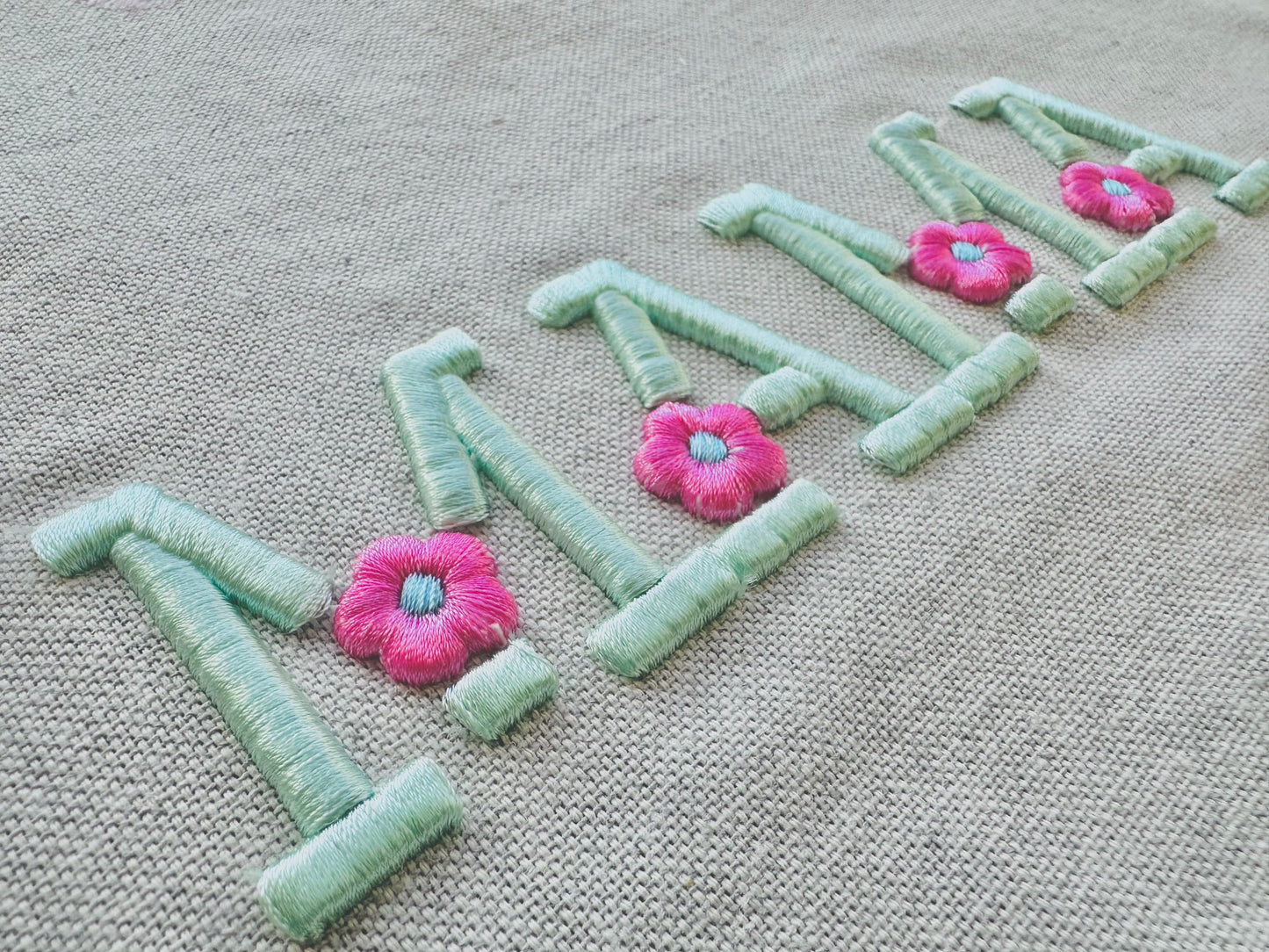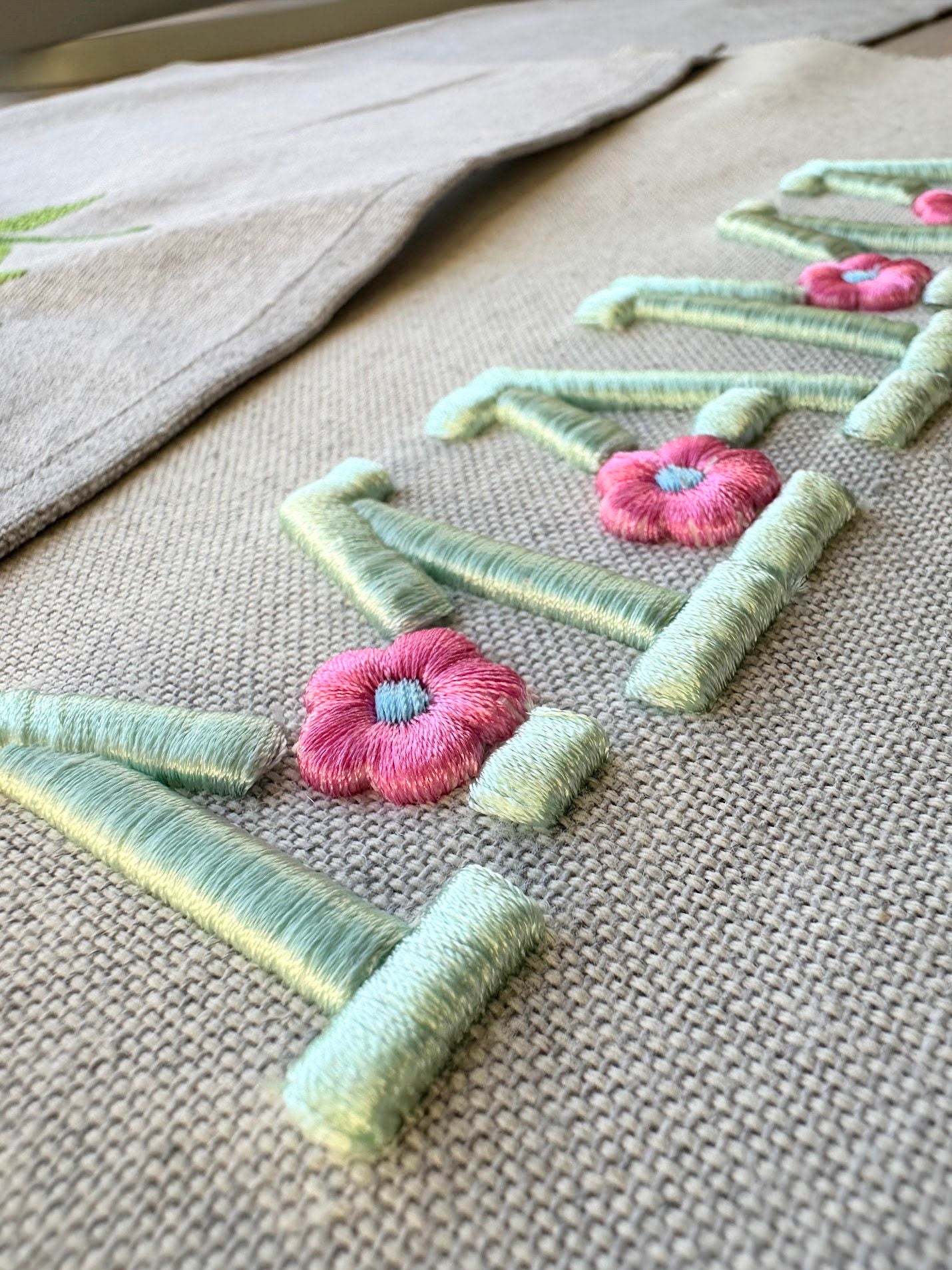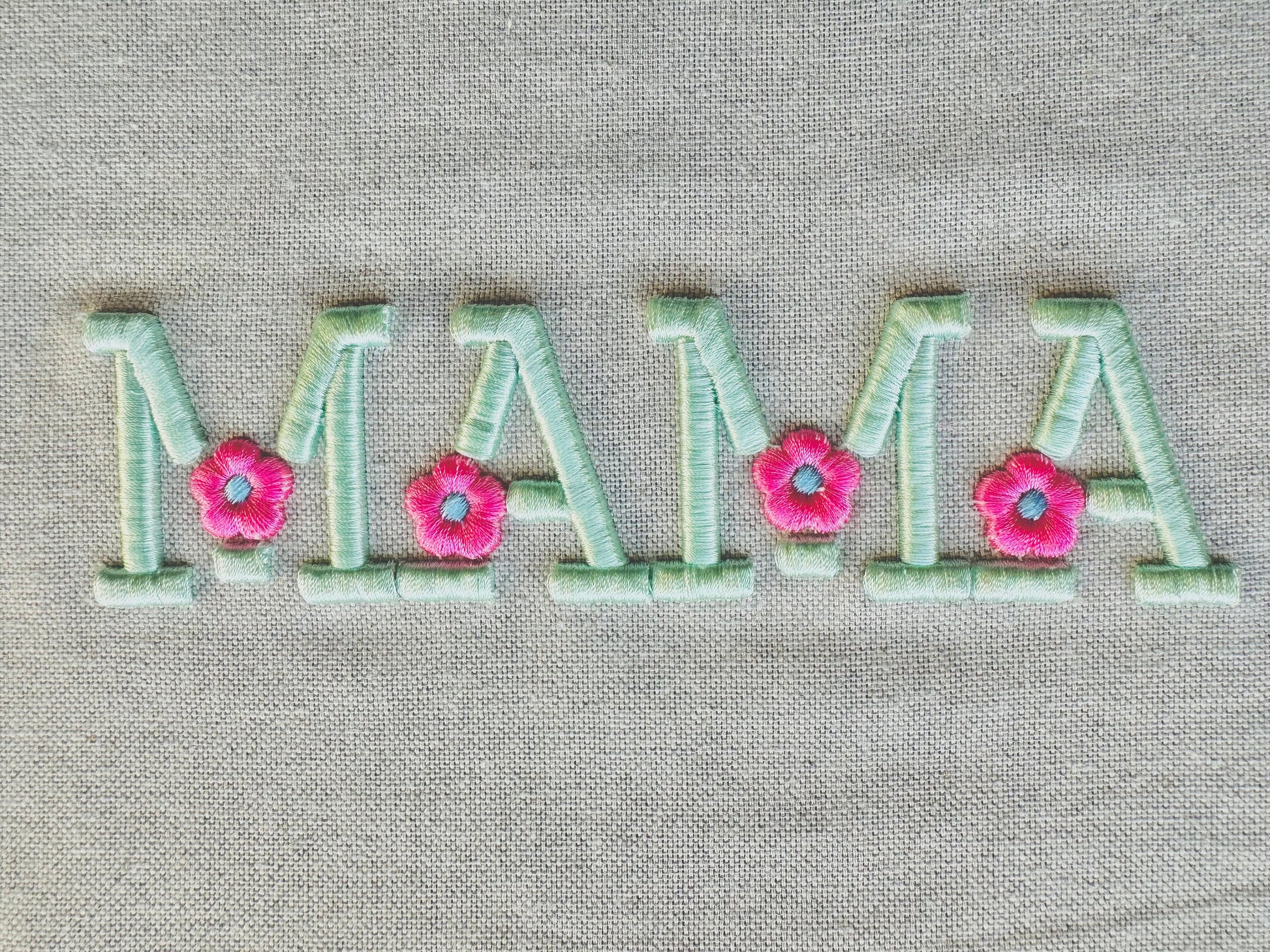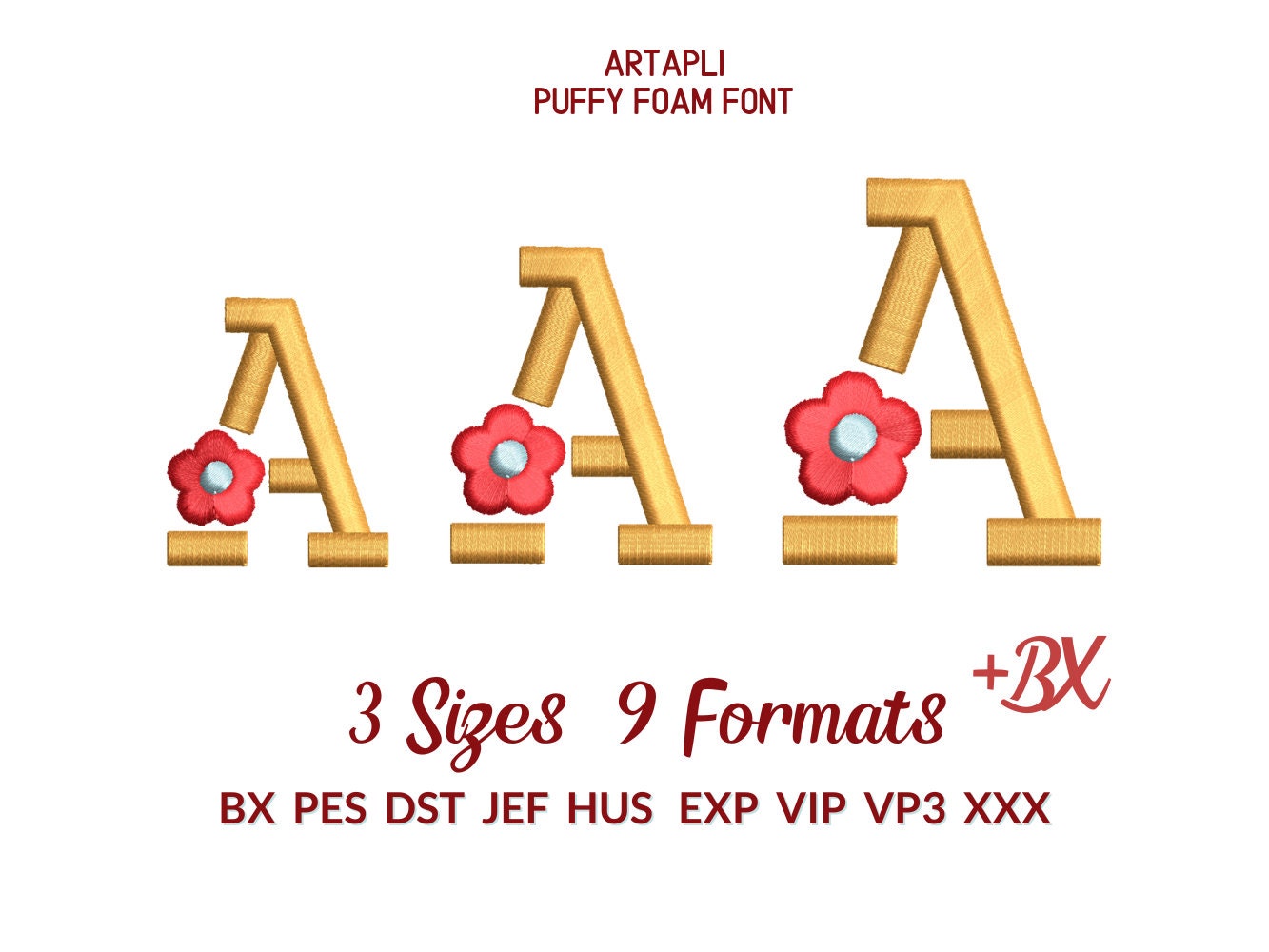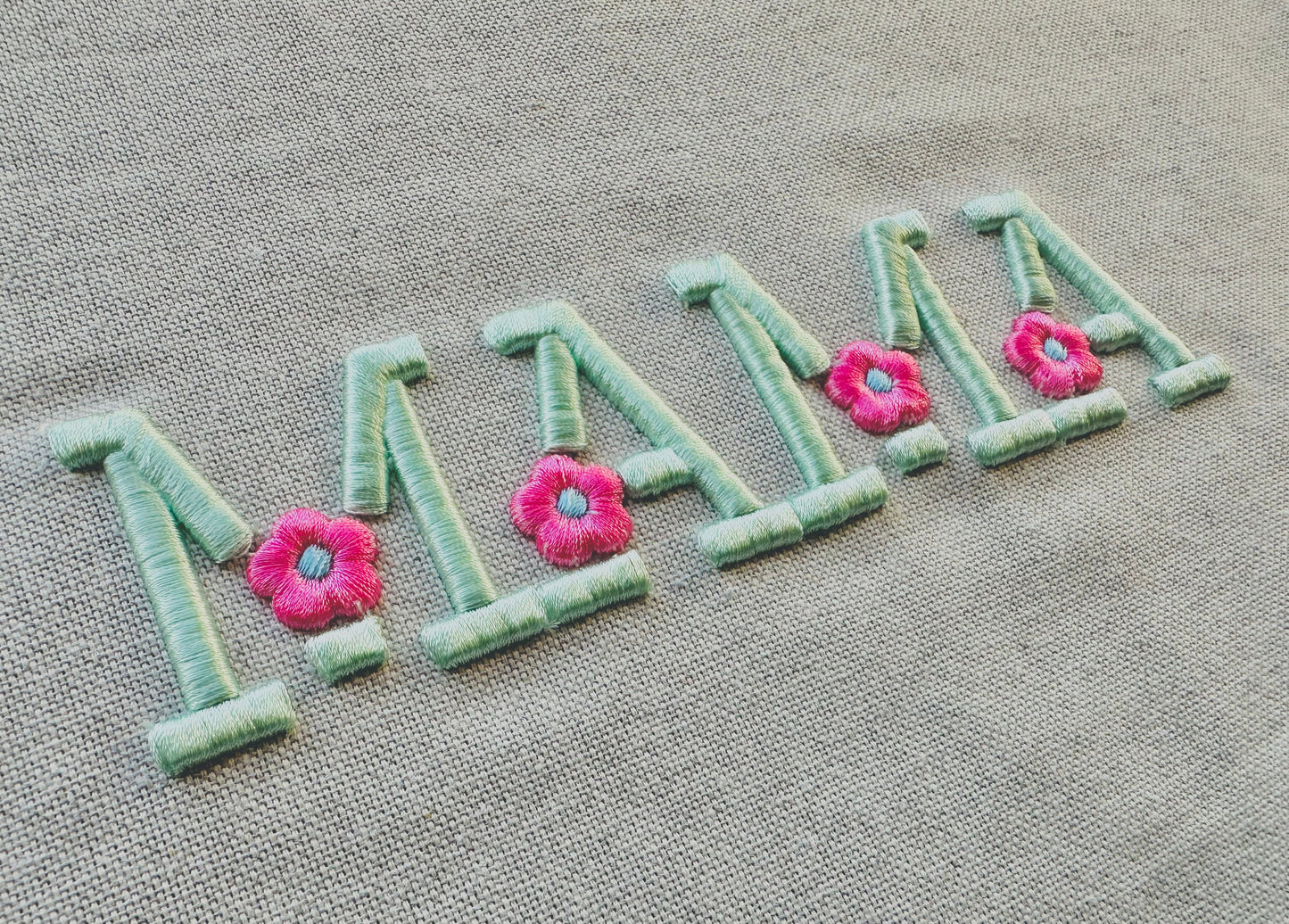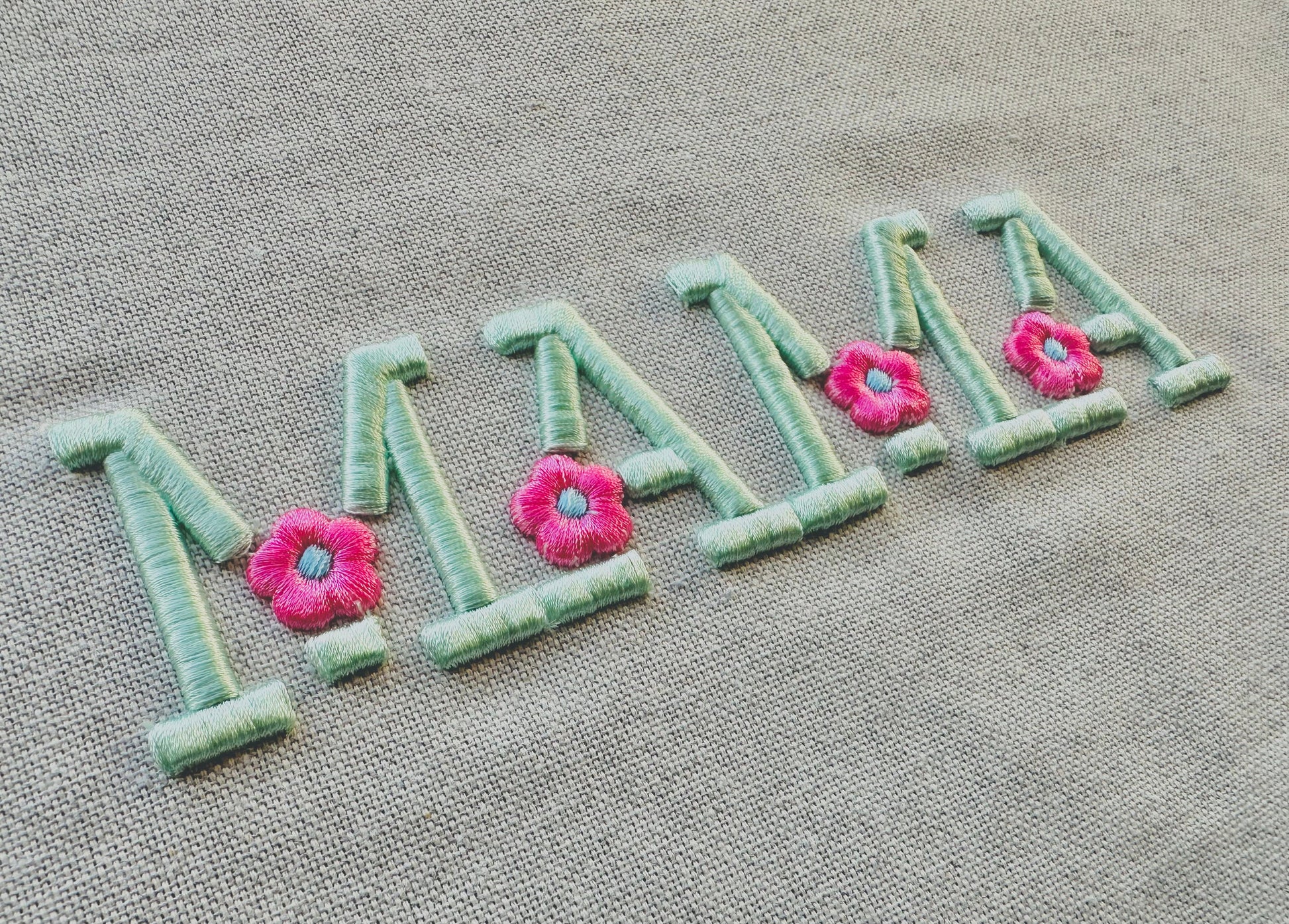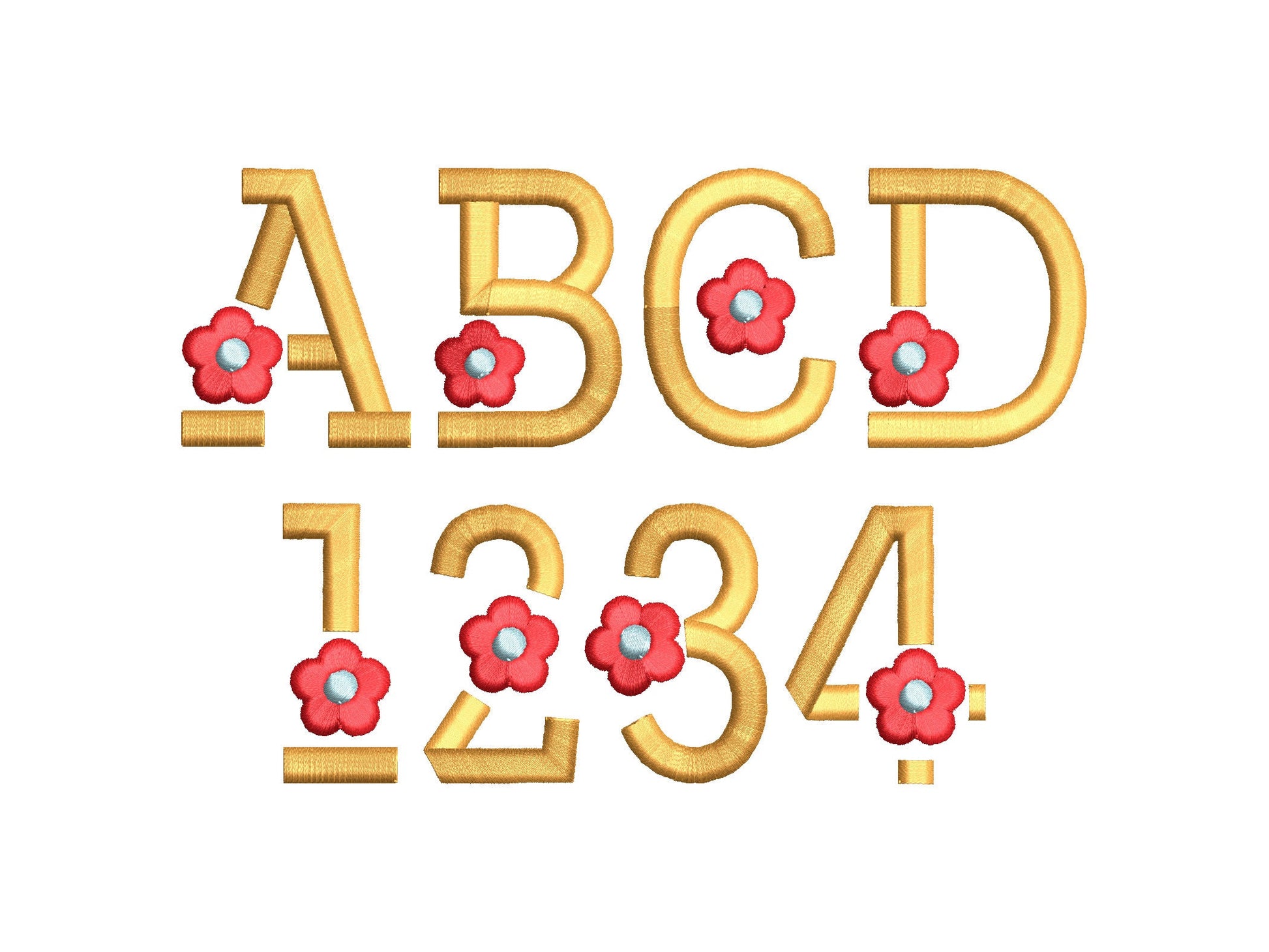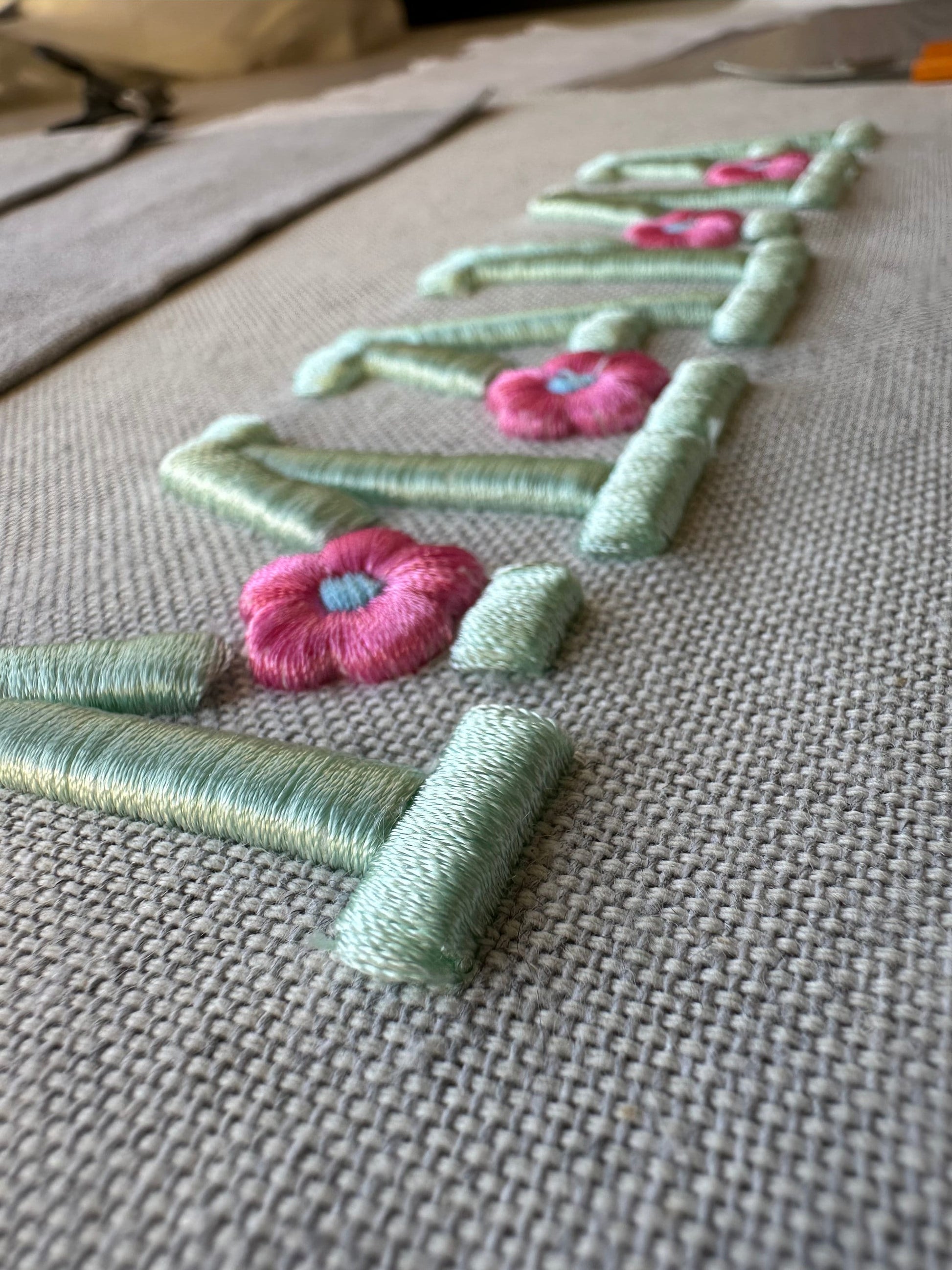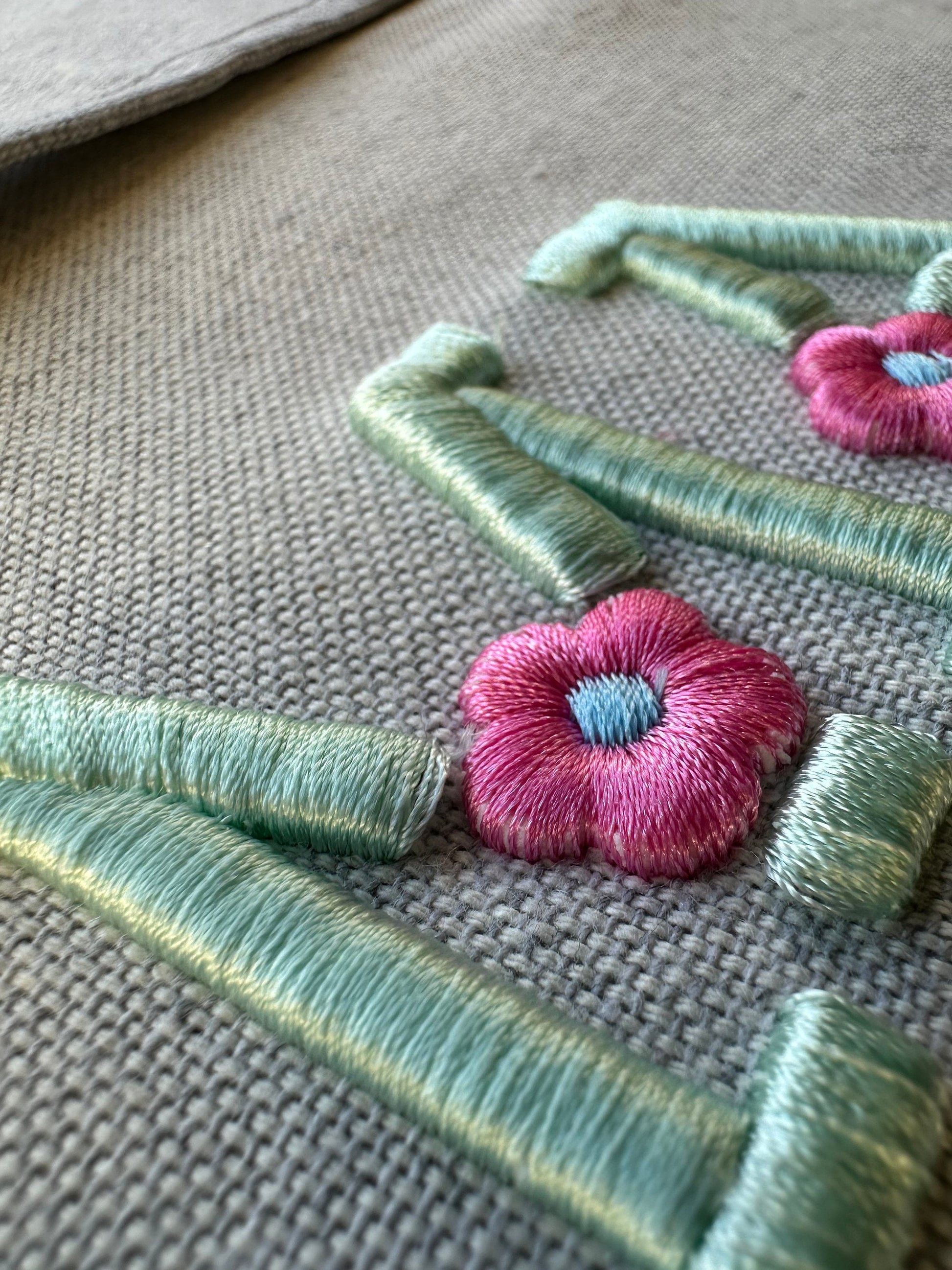
Or click to open the linkA 3D puffy daisy flower block font stitched over foam. Great for raised letters on caps, girls' shirts, sweatshirts and bags.
Uppercase letters A to Z and numbers 0 to 9. Three sizes: 1.3, 1.7 and 2 inches. Needs puffy foam; 3 mm foam works well.